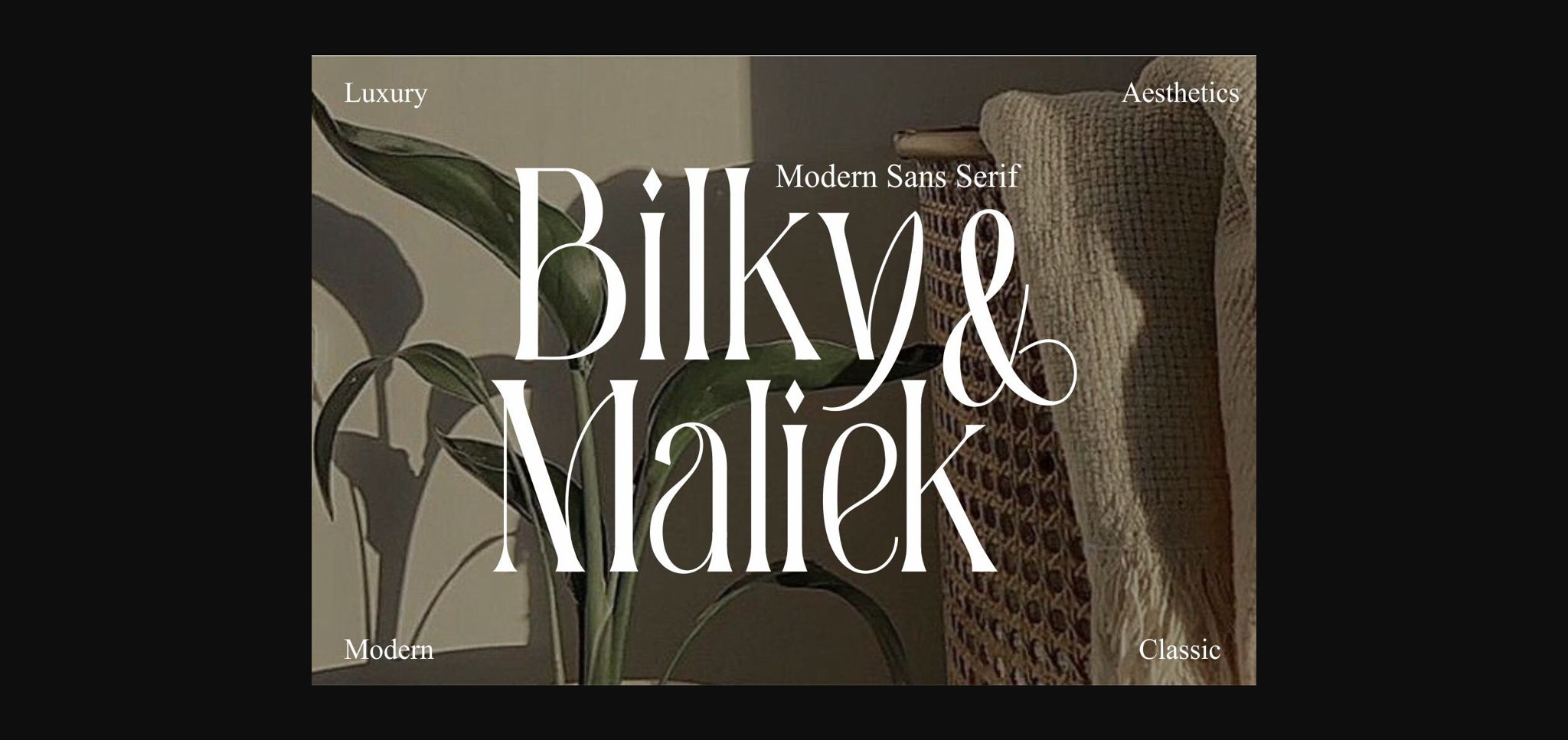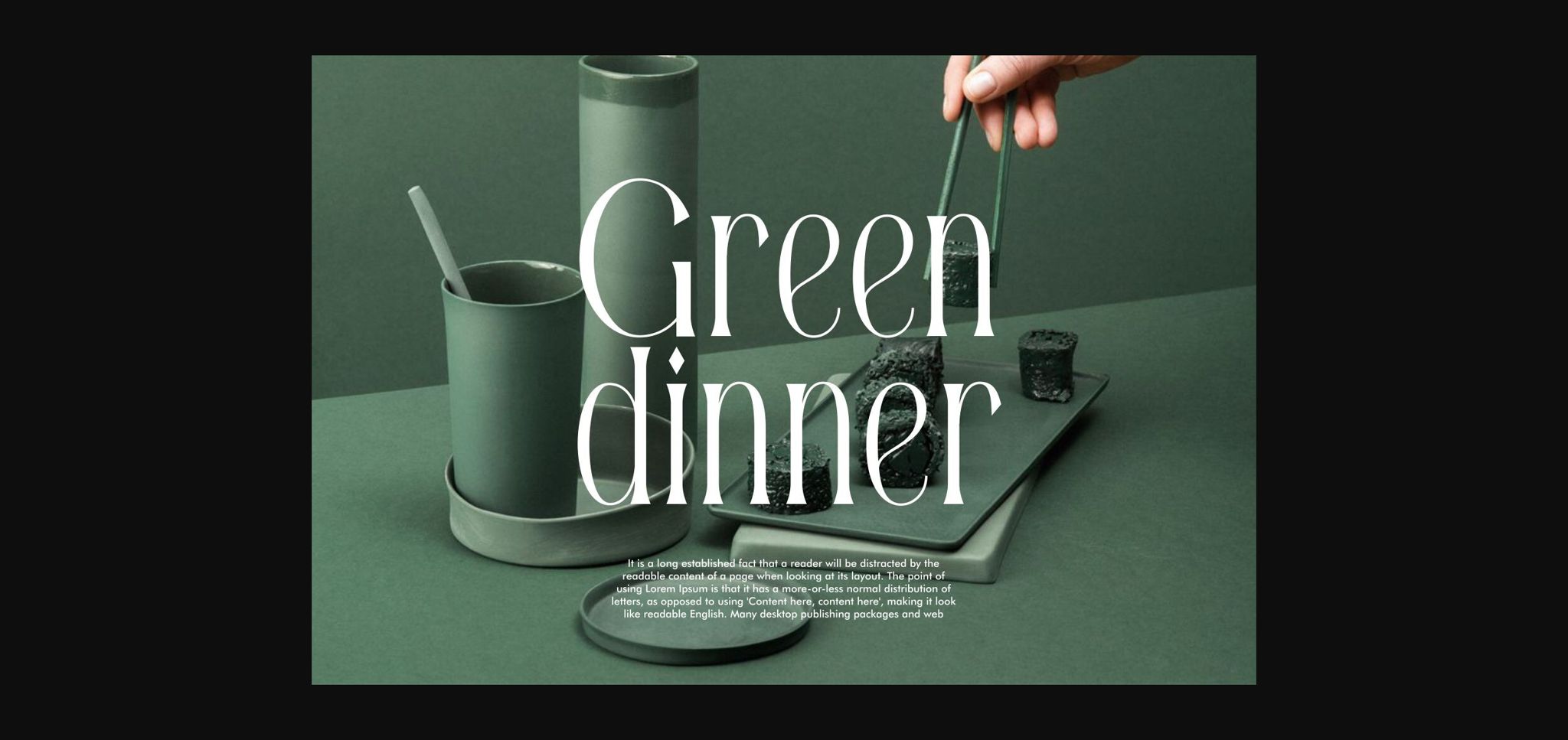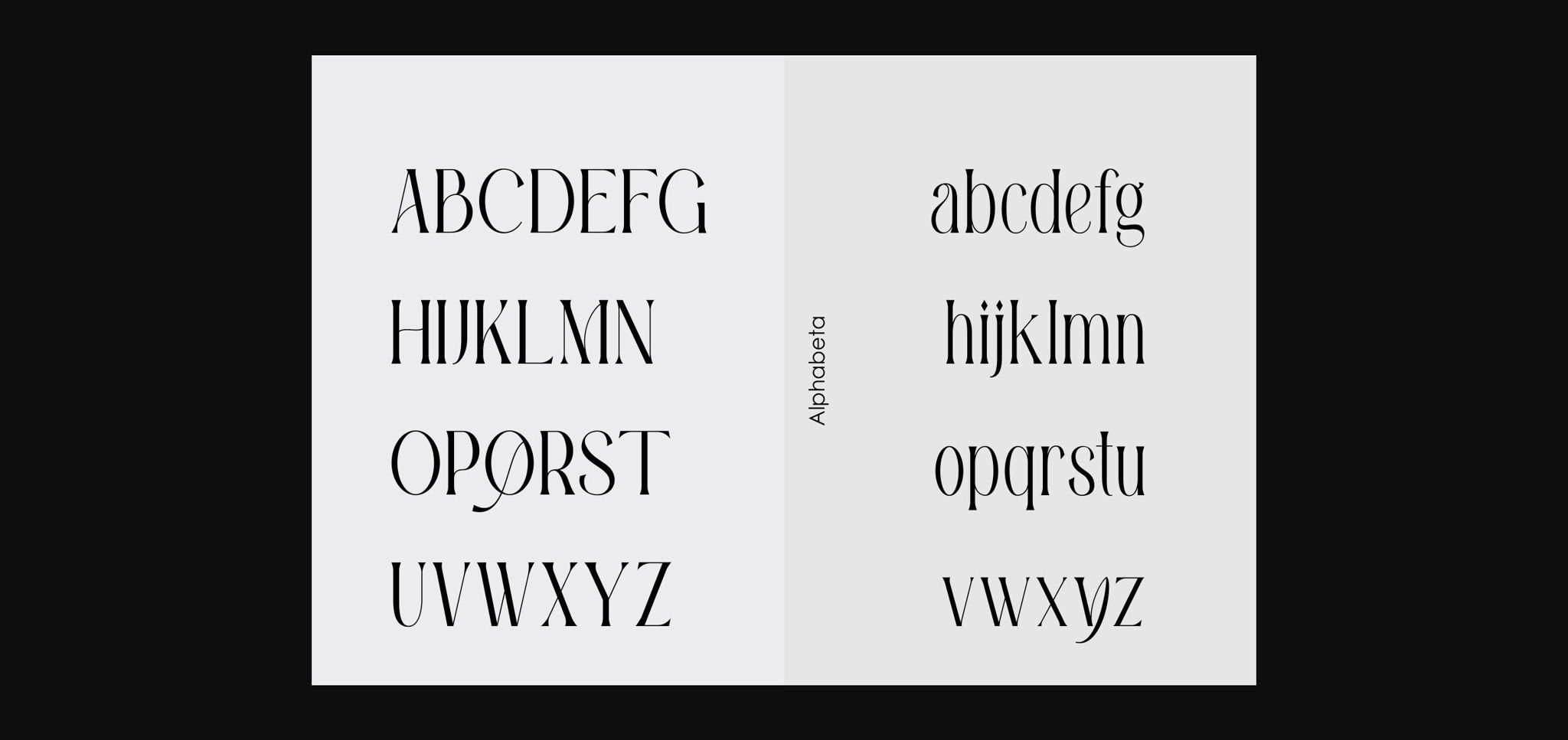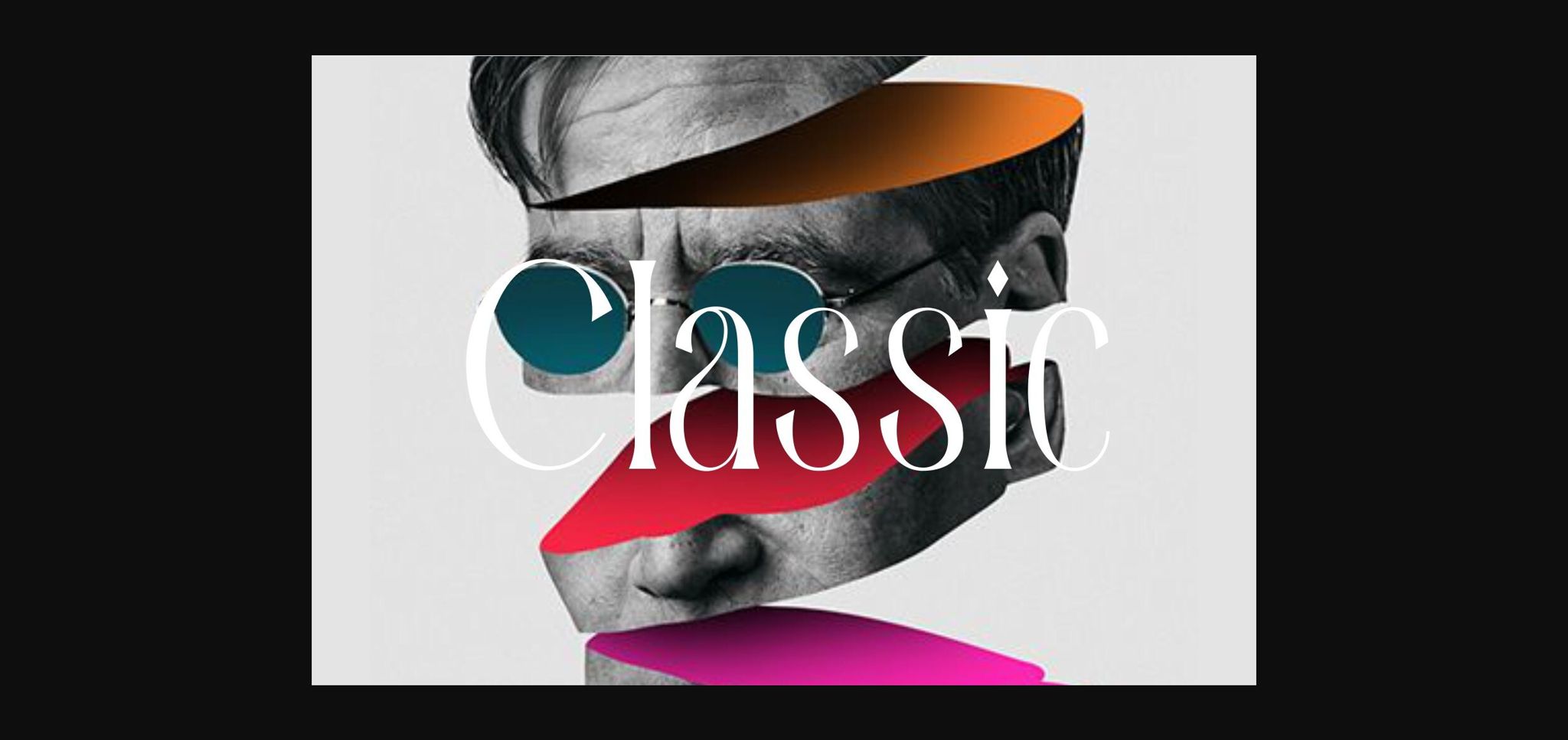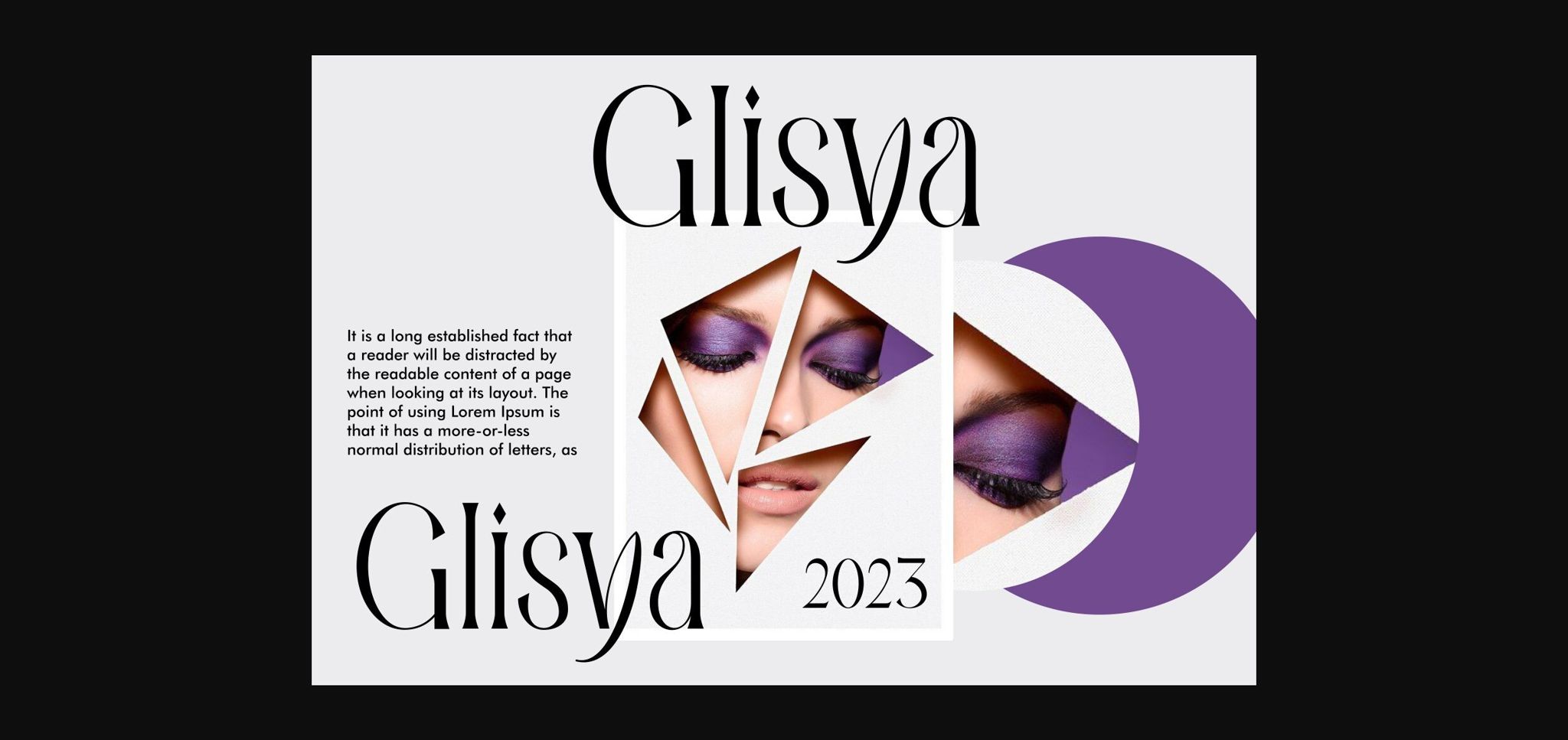
About Bilky Maliek Font
Bilky Maliek is an elegant sans serif font, that features a very delicate and classy look. Not too thin and not too thick, balanced and varied, Bilky Maliek was designed to enhance the beauty of your projects.